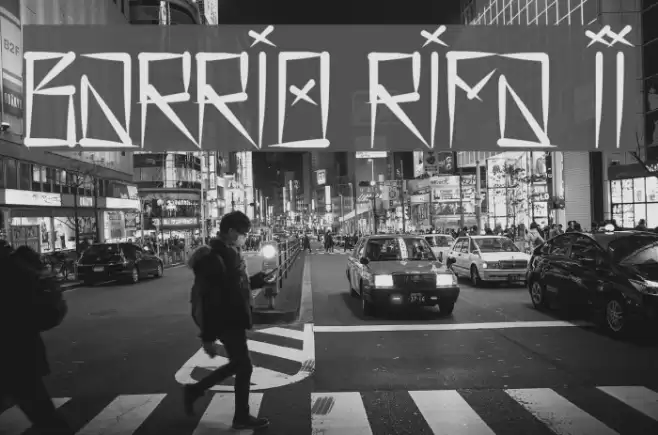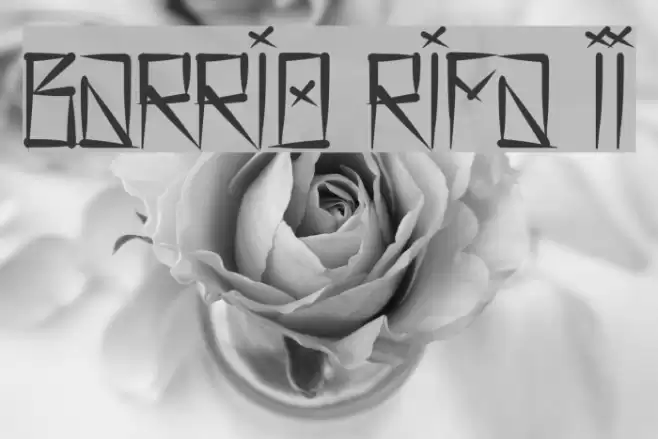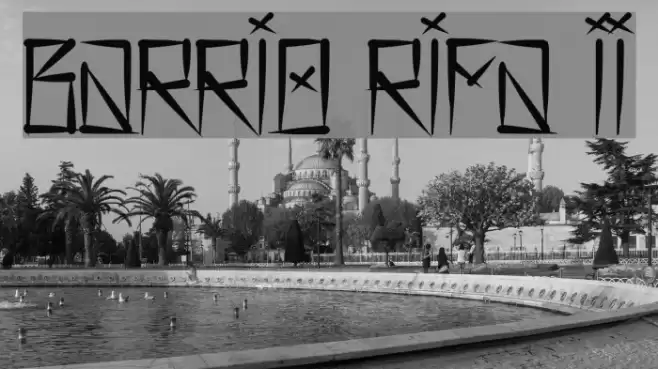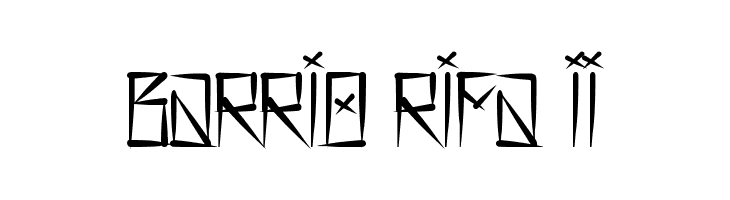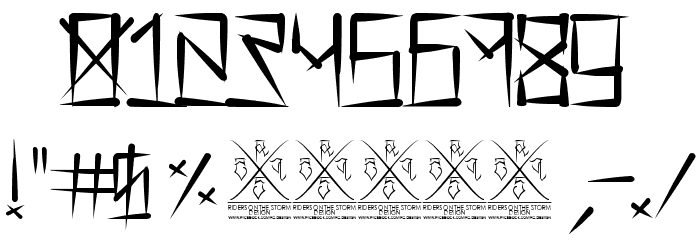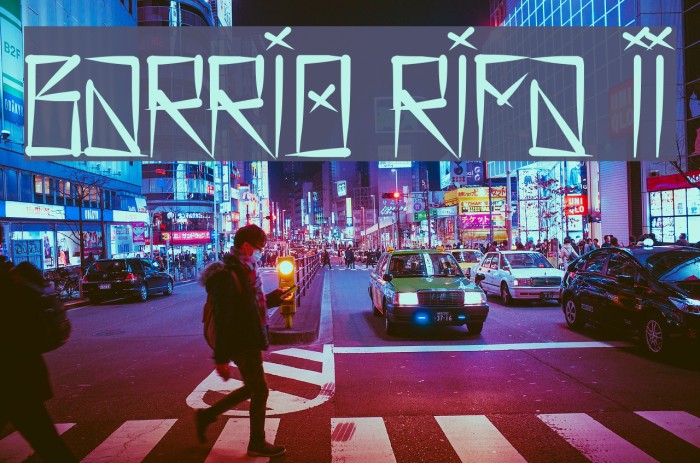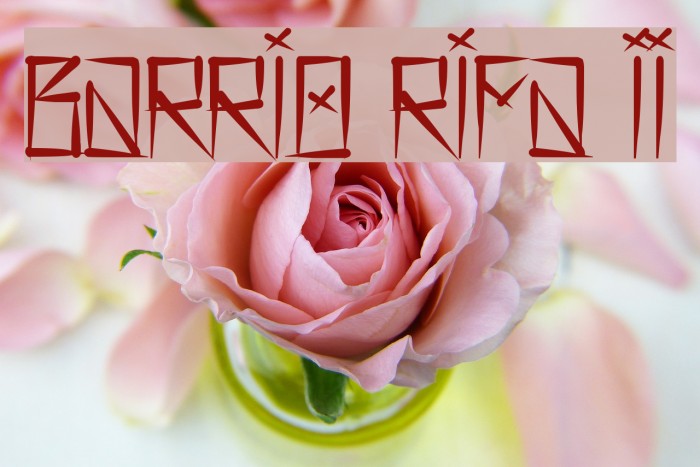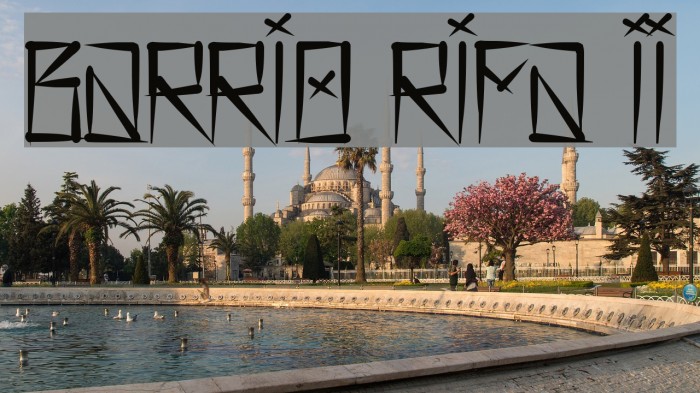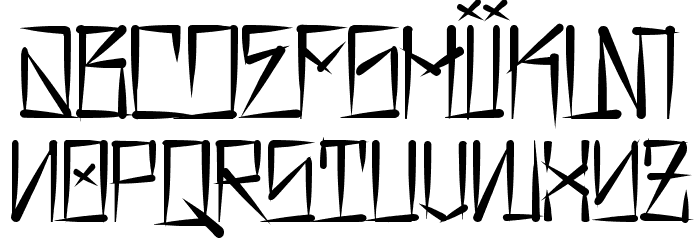
Barrio Rifa II Font
Barrio Rifa II Description
This font features a bold, angular design with sharp edges and a graffiti-inspired aesthetic. Each character is crafted with a unique, edgy style that incorporates both straight lines and pointed angles, giving it a dynamic and rebellious look. The uppercase and lowercase letters maintain a consistent height, while the numbers and special characters follow the same angular theme. The font's distinct style is reminiscent of urban street art, making it eye-catching and memorable. The overall appearance is striking, with a high level of detail and creativity in each letterform.
A bold, angular font with a graffiti-inspired, edgy design from Graffiti fonts.
- Proposed Projects: Ideal for urban-themed designs, streetwear branding, music album covers, and graffiti art projects.
- Overall Style: Modern, Urban
- Use Case: Logos, Posters, Headlines